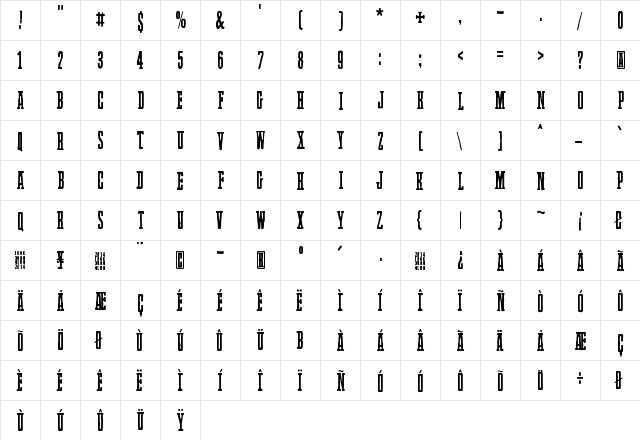
Llama Grazy Regular
| Designer | junkohanhero |
Design Context for Llama Grazy Typeface
Llama Grazy is a composed and adaptable typeface that performs quietly and consistently across a wide range of design contexts.